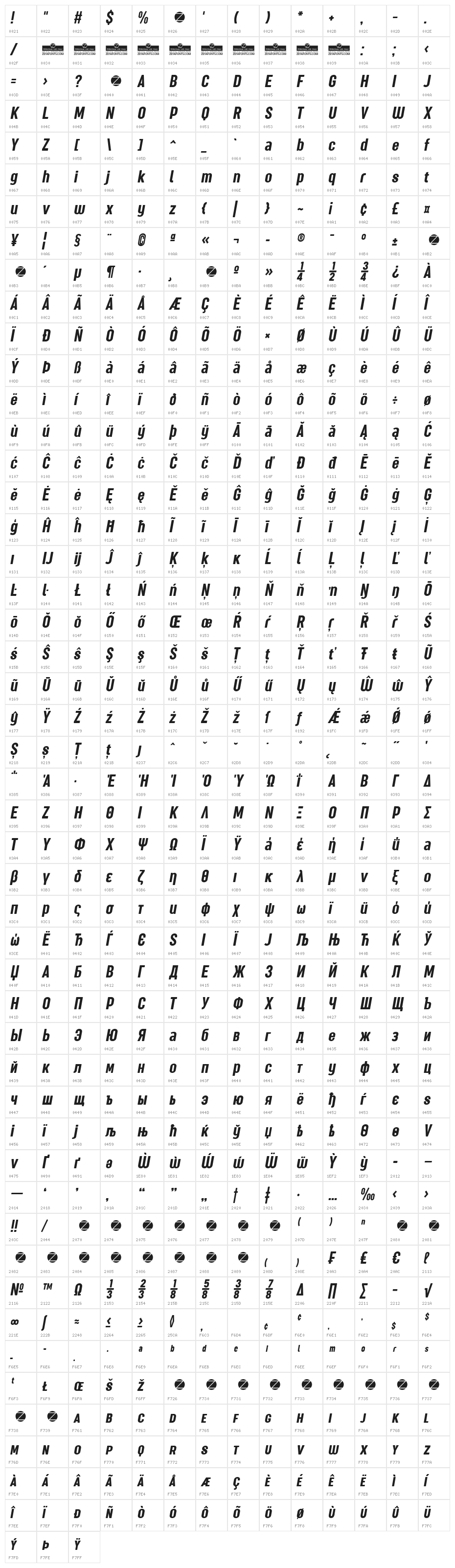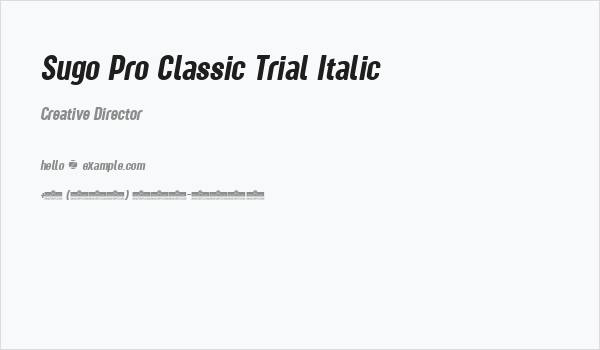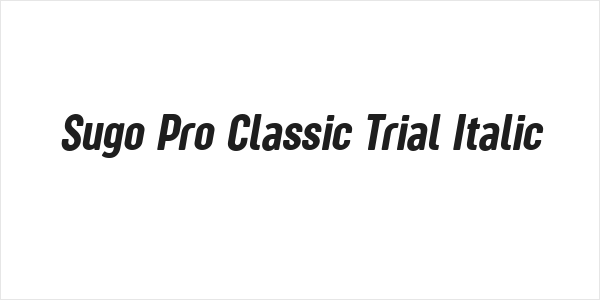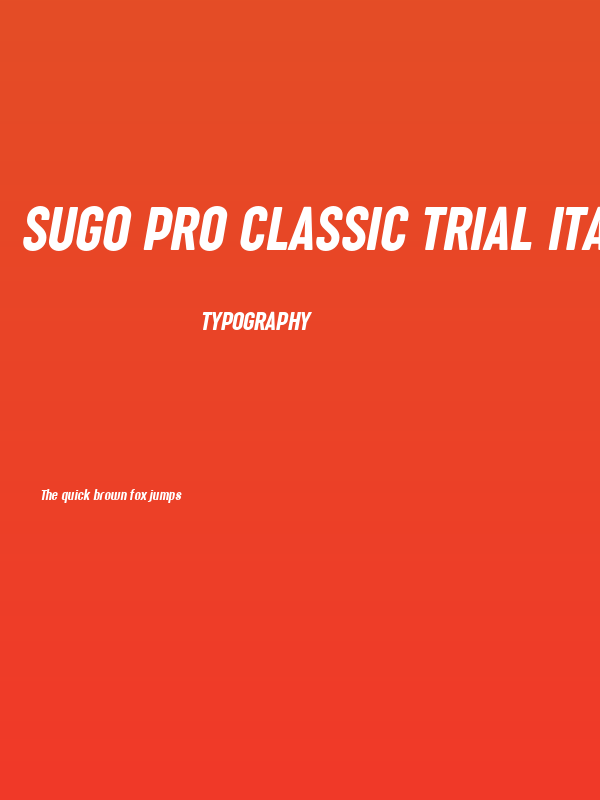
Sugo Pro Classic Trial Italic Font
Sugo Pro Classic Trial Italic Description
This font features a bold and dynamic italic style, characterized by strong, angular lines and a slightly condensed form. The uppercase and lowercase letters maintain a consistent slant, enhancing the italicized appearance. The strokes are thick, providing a robust and impactful look, suitable for making statements. The numerals and special characters follow the same stylistic cues, ensuring uniformity across all glyphs. The overall design is modern and sleek, with a touch of aggression due to its boldness and angularity.
Use CaseHeadlines, Logos, Branding
Proposed ProjectsIdeal for branding, advertising, and headlines where a strong, modern presence is desired.